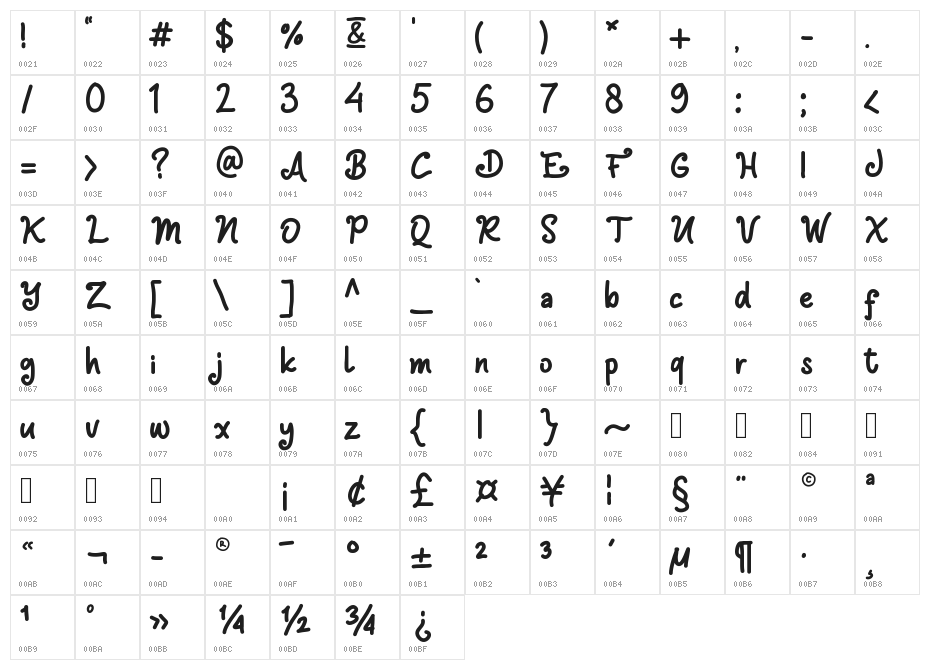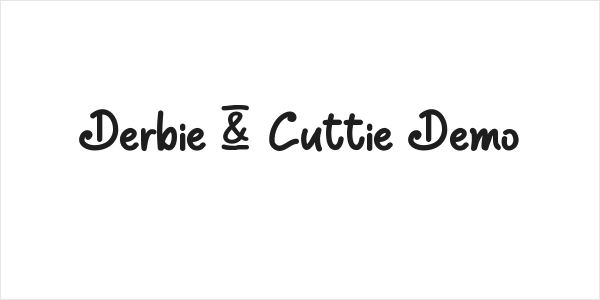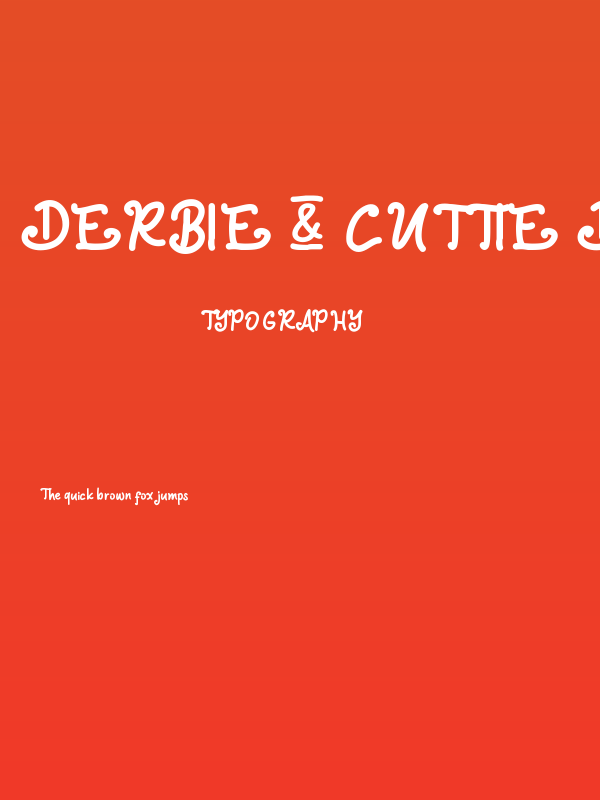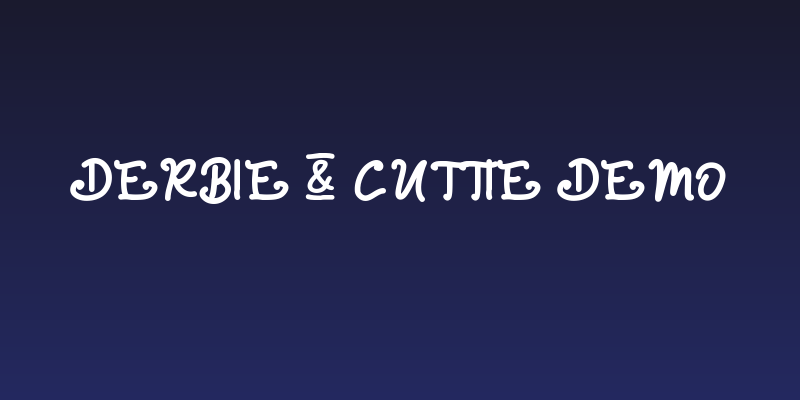
Derbie & Cuttie Demo Font
Derbie & Cuttie Demo Description
This playful and whimsical font features bold, rounded characters with a hand-drawn aesthetic. The uppercase letters are slightly larger and more pronounced, while the lowercase letters maintain a consistent flow and rhythm. The numbers are equally bold and rounded, matching the style of the alphabet. Special characters are creatively designed, adding to the font's overall charm. The strokes are consistent in thickness, providing a uniform appearance across all characters. This font exudes a friendly and approachable vibe, making it suitable for a variety of creative projects.
Overall StylePlayful
Use CaseHeadlines, Logos, Creative projects
Proposed ProjectsIdeal for children's books, playful branding, greeting cards, and creative posters.